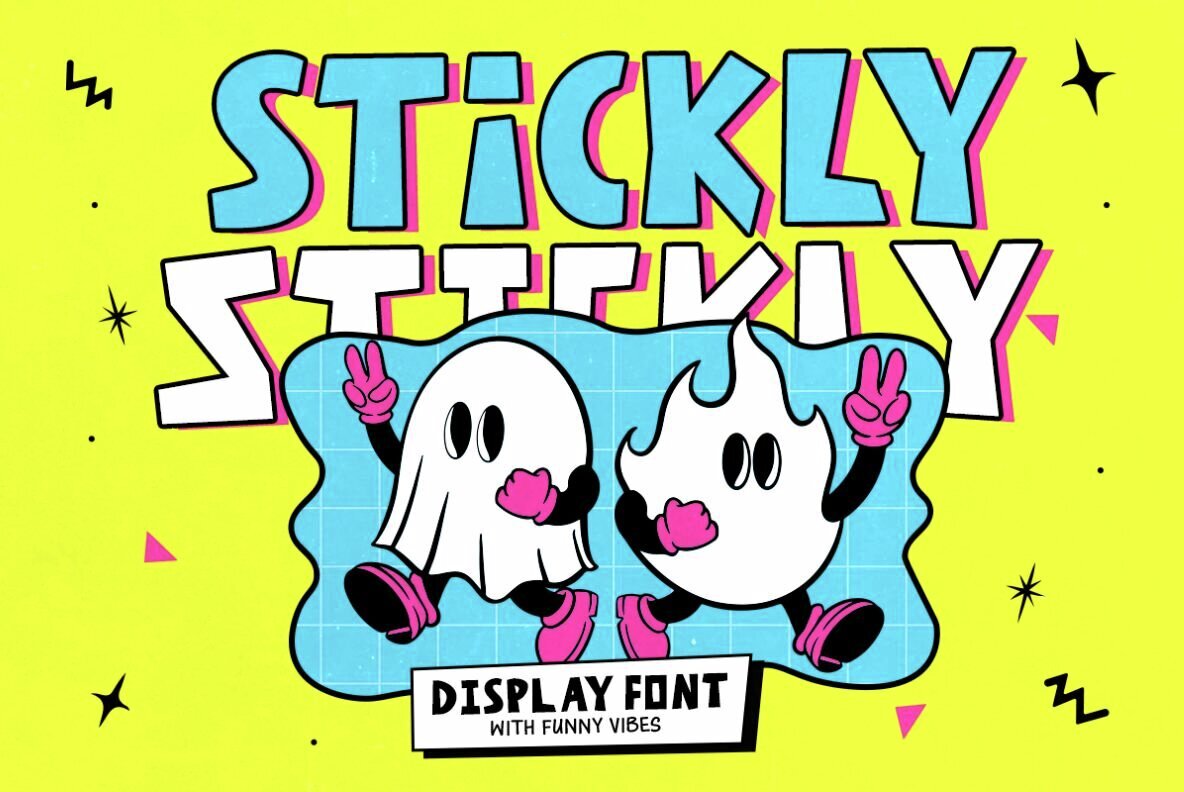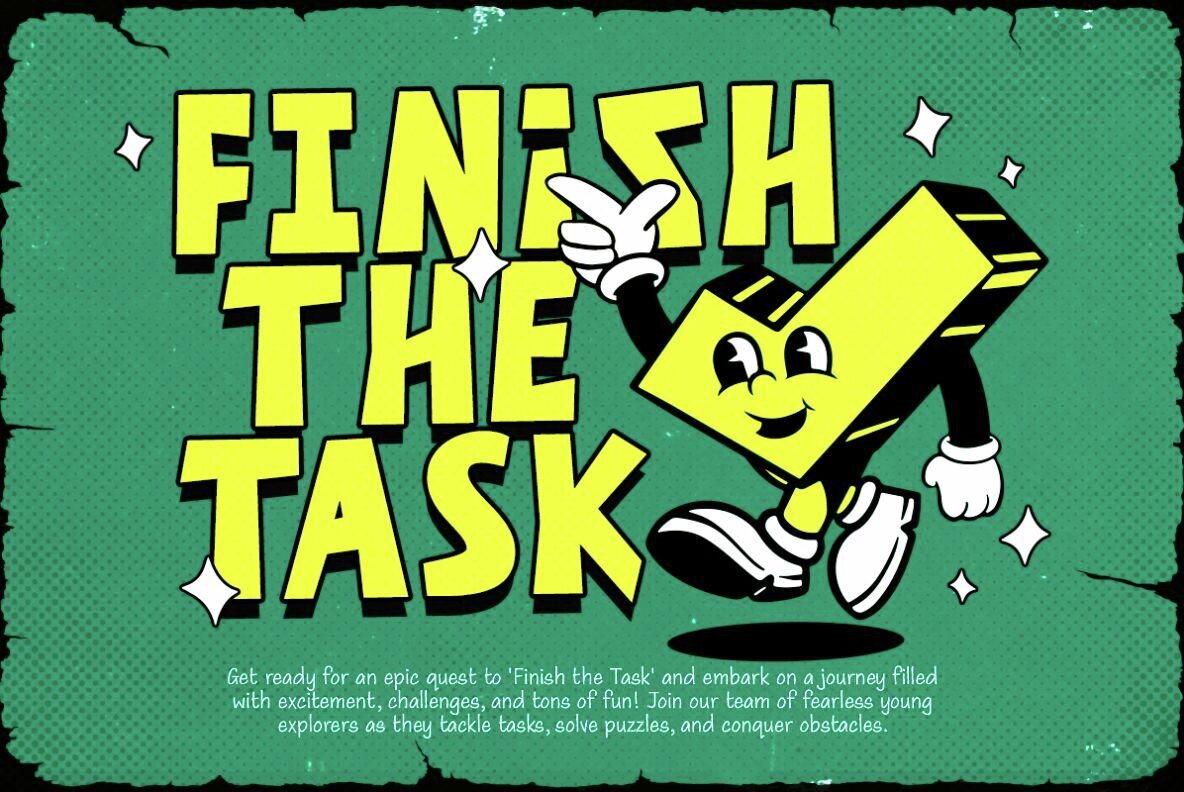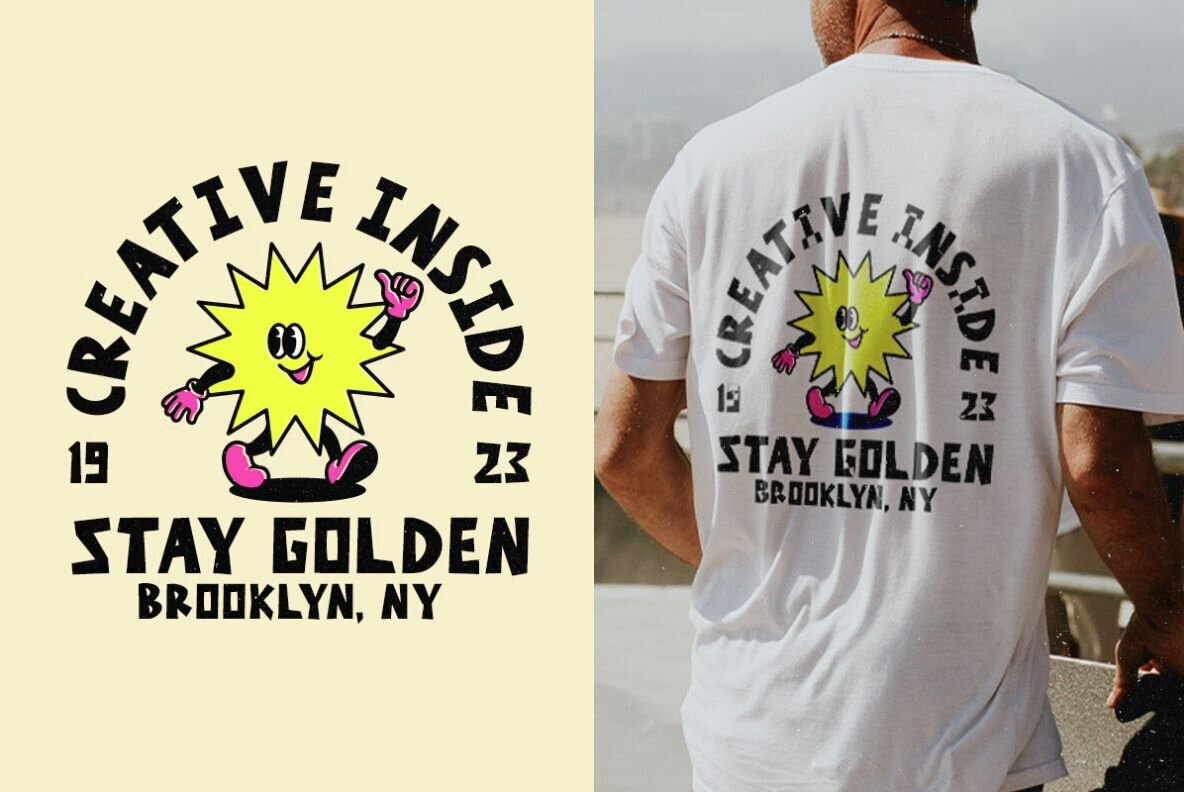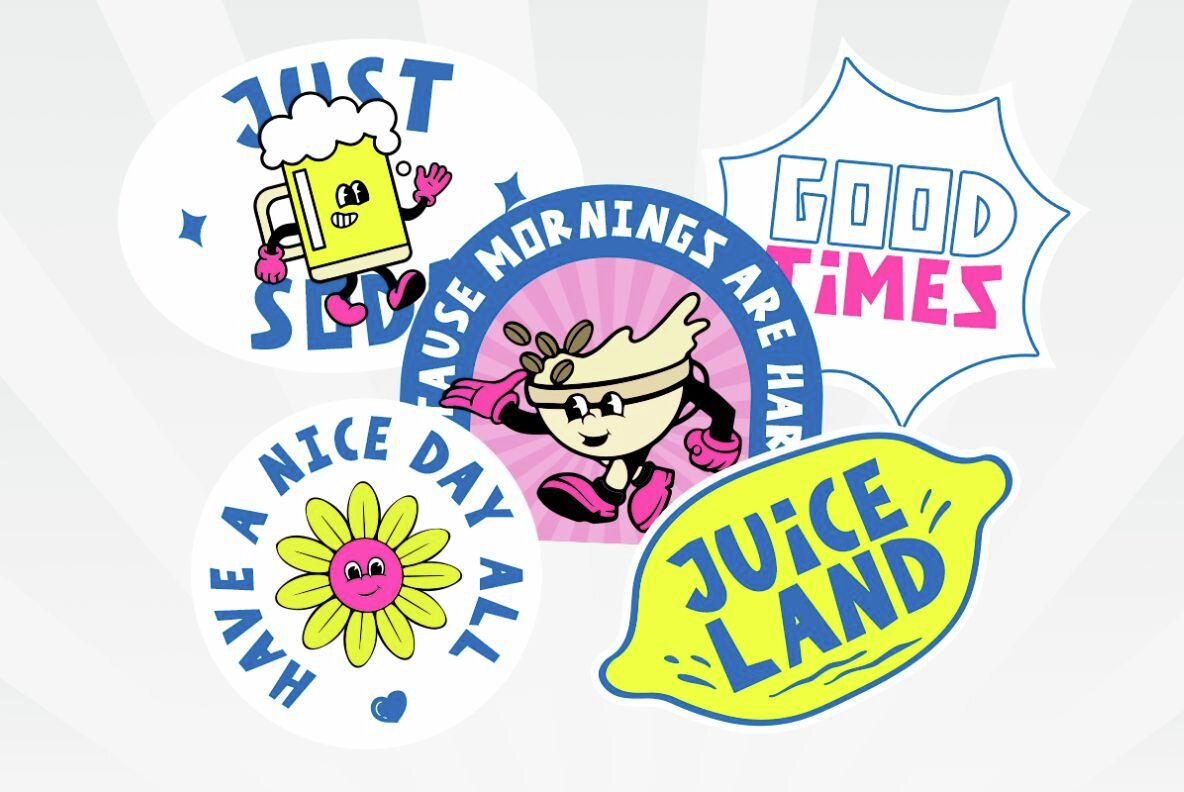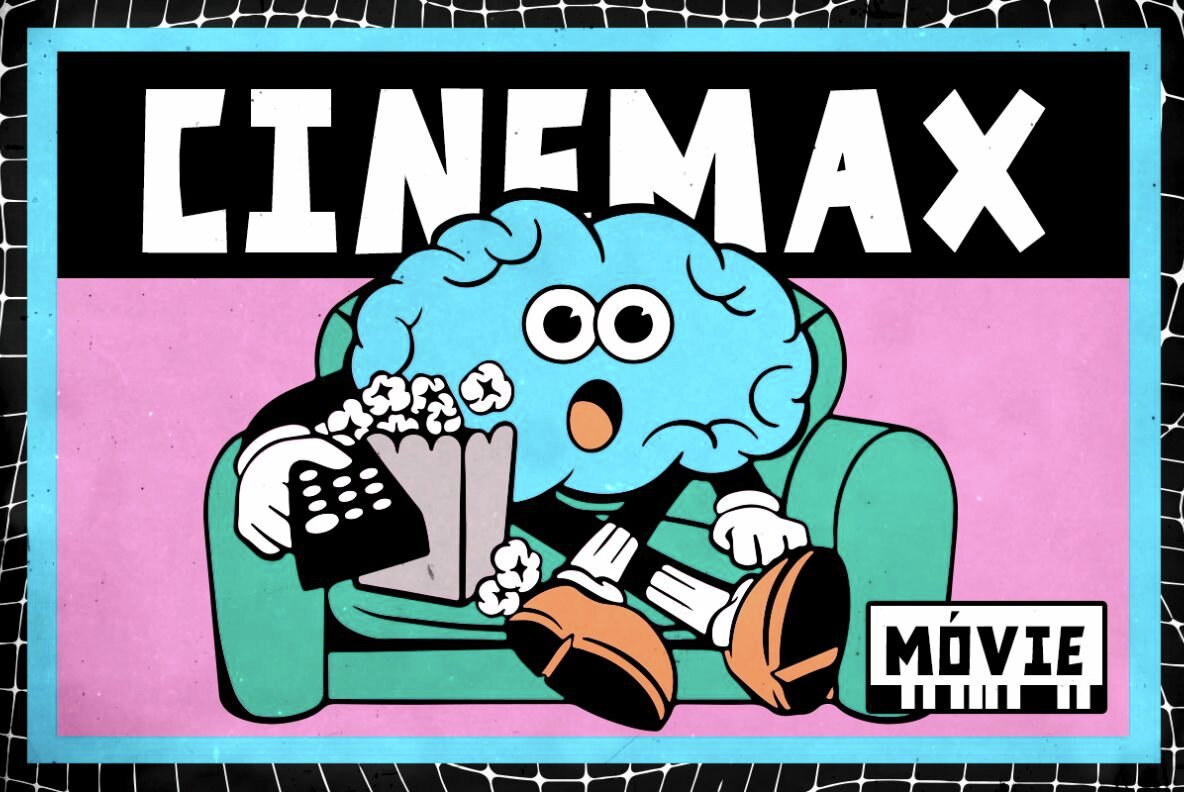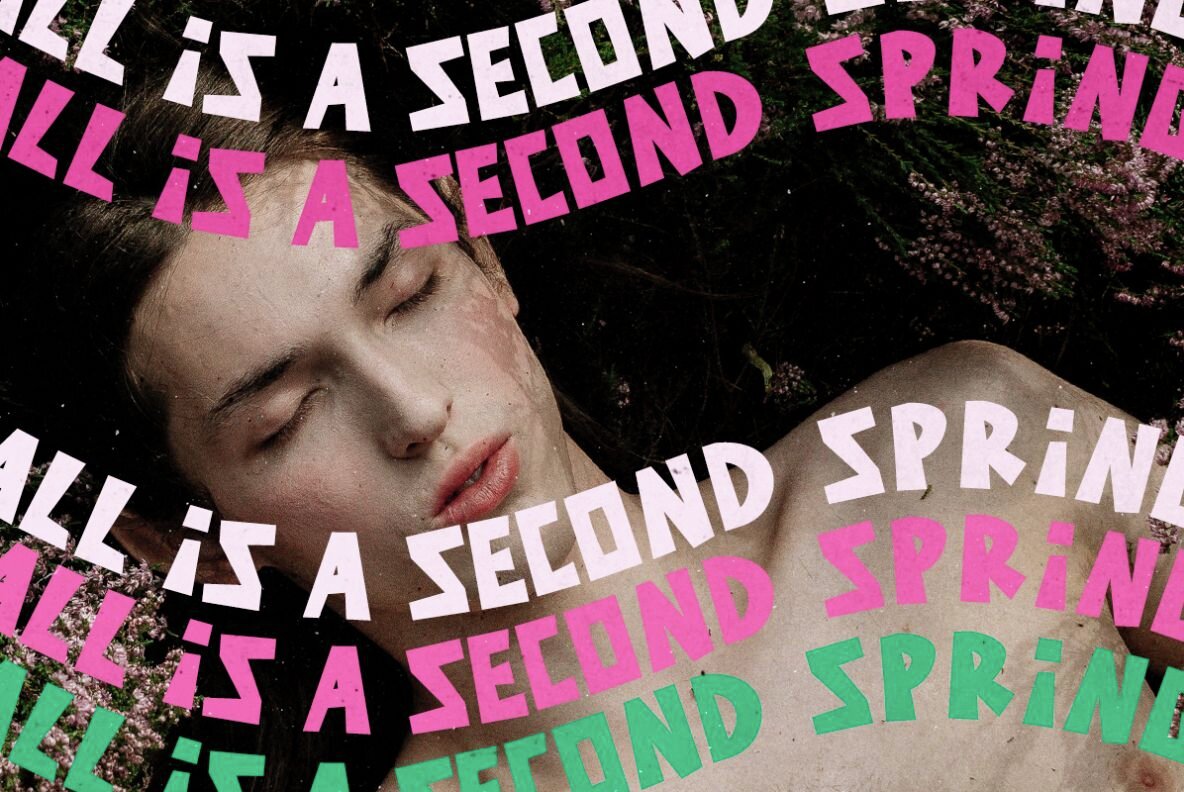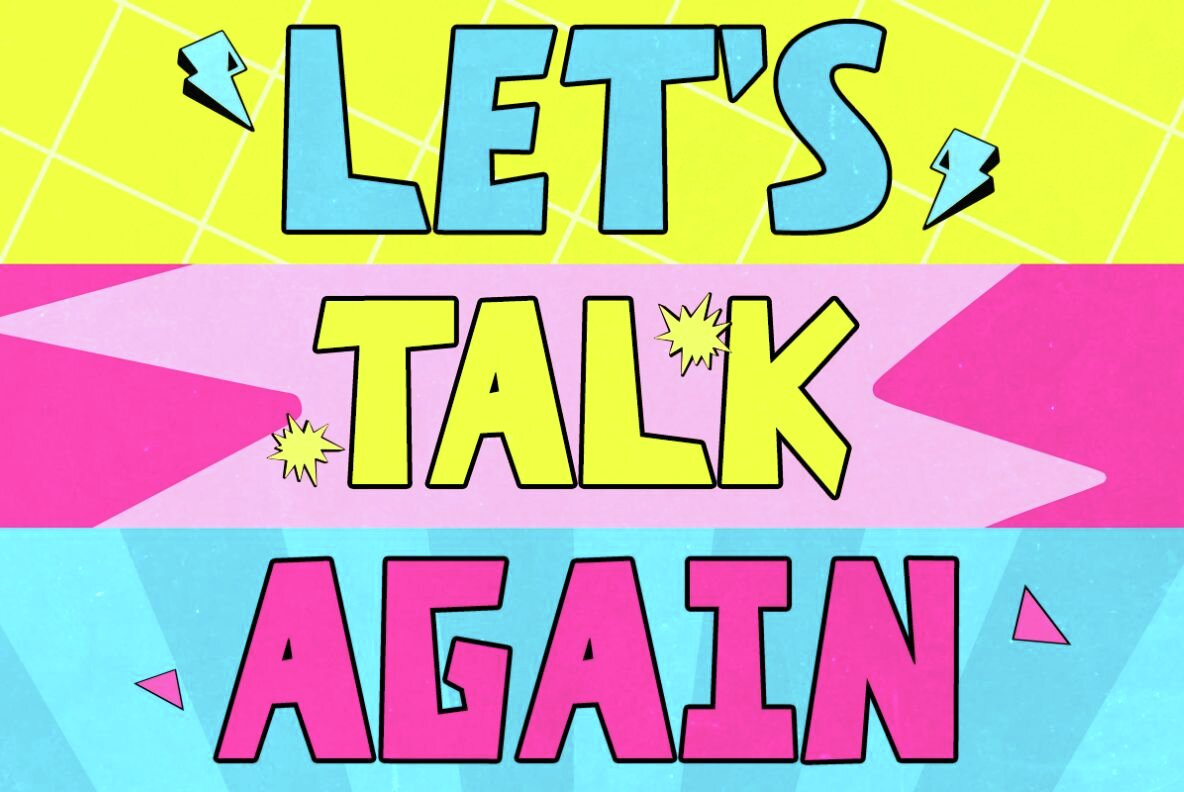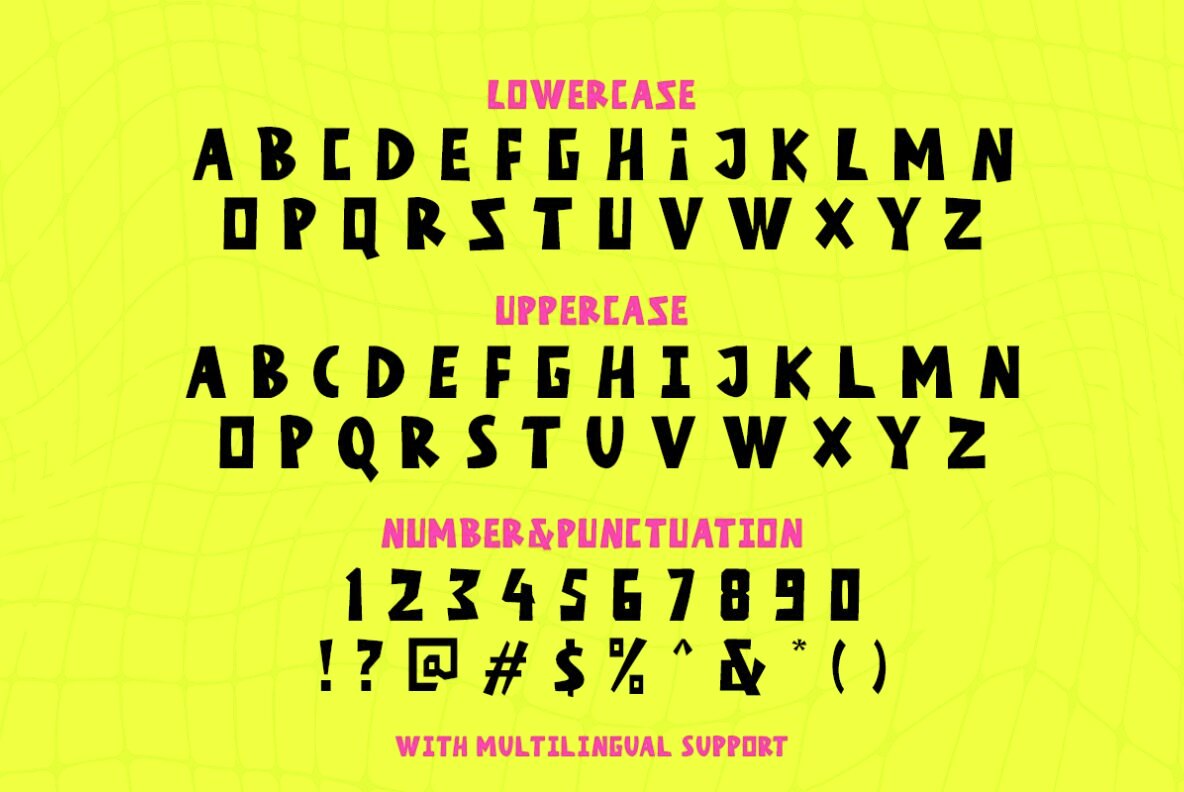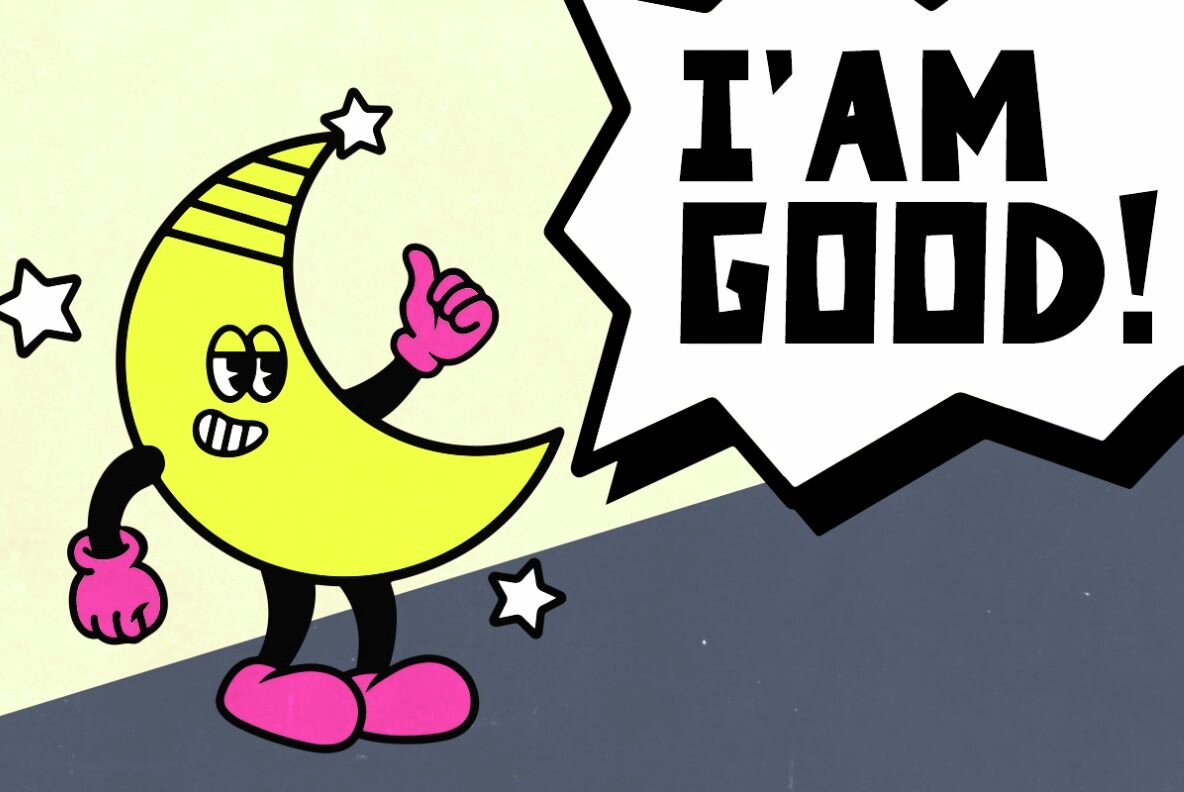
Stickly Font
Stickly Regular
Infuse creativity and charm into your designs with Stickly, a whimsical display font. This font features distinctively shaped uppercase and lowercase letters that blend seamlessly, allowing for dynamic and engaging typography. Perfect for a variety of applications, including festival posters, quotes, stickers, and even cartoon movie titles.Stickly: A Playful Display Typeface